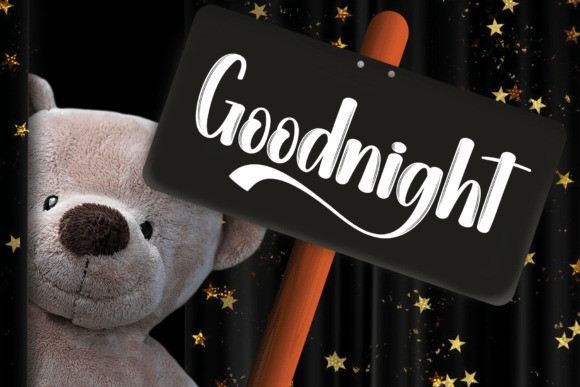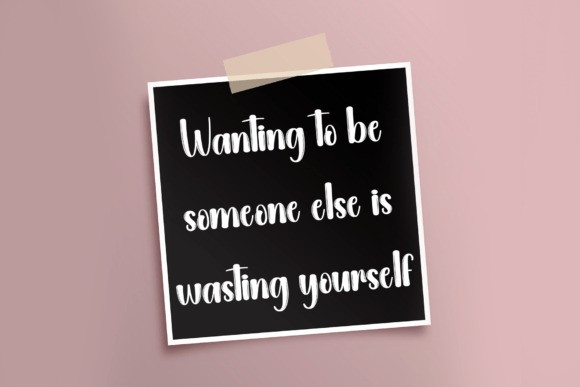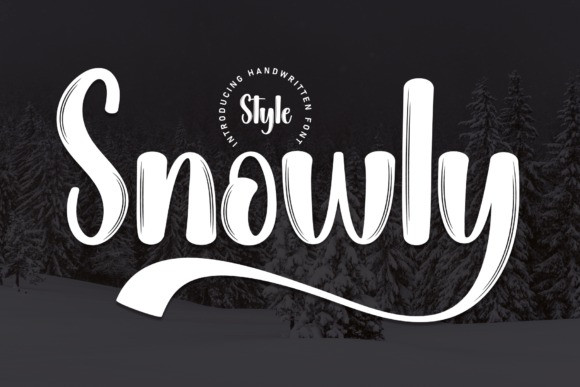
Snowly Script Font
Snowly Script Font is a magical script font carefully created with a touch of elegance. Whether you’re looking for fonts for Instagram or calligraphy scripts for DIY projects, this font will turn any creative idea into a true piece of art!